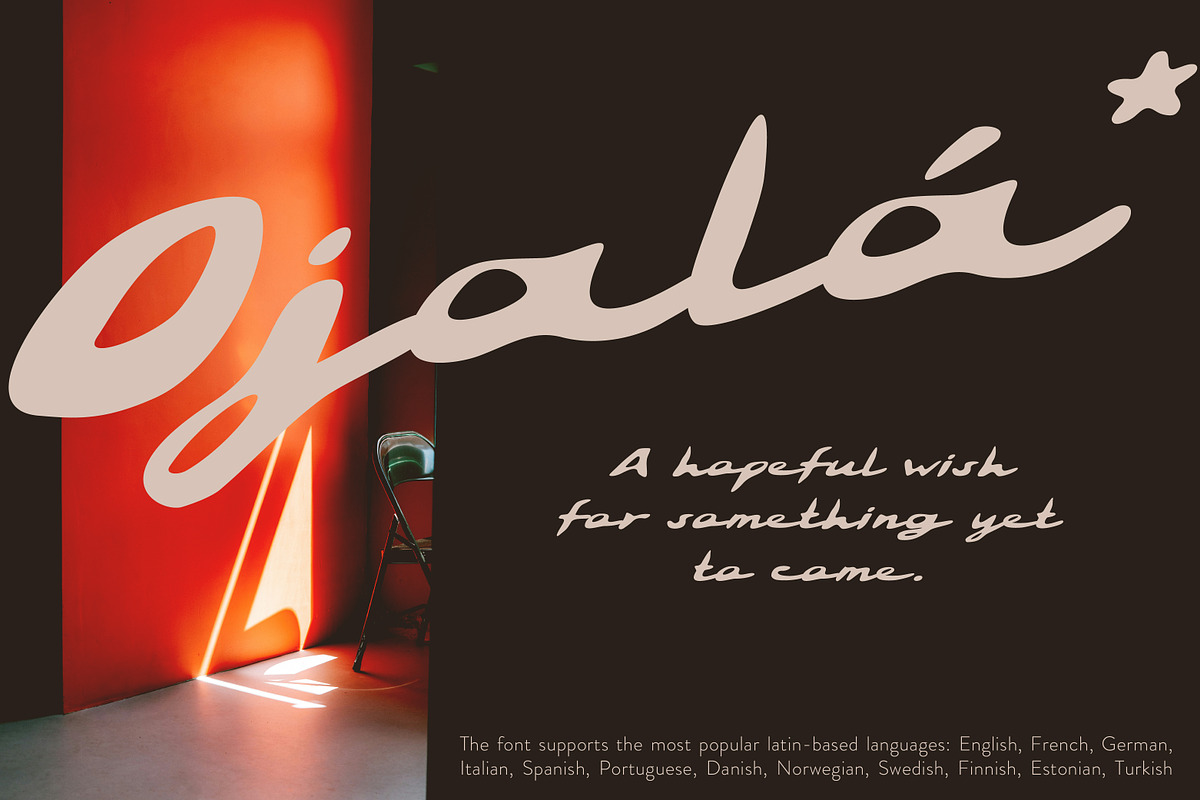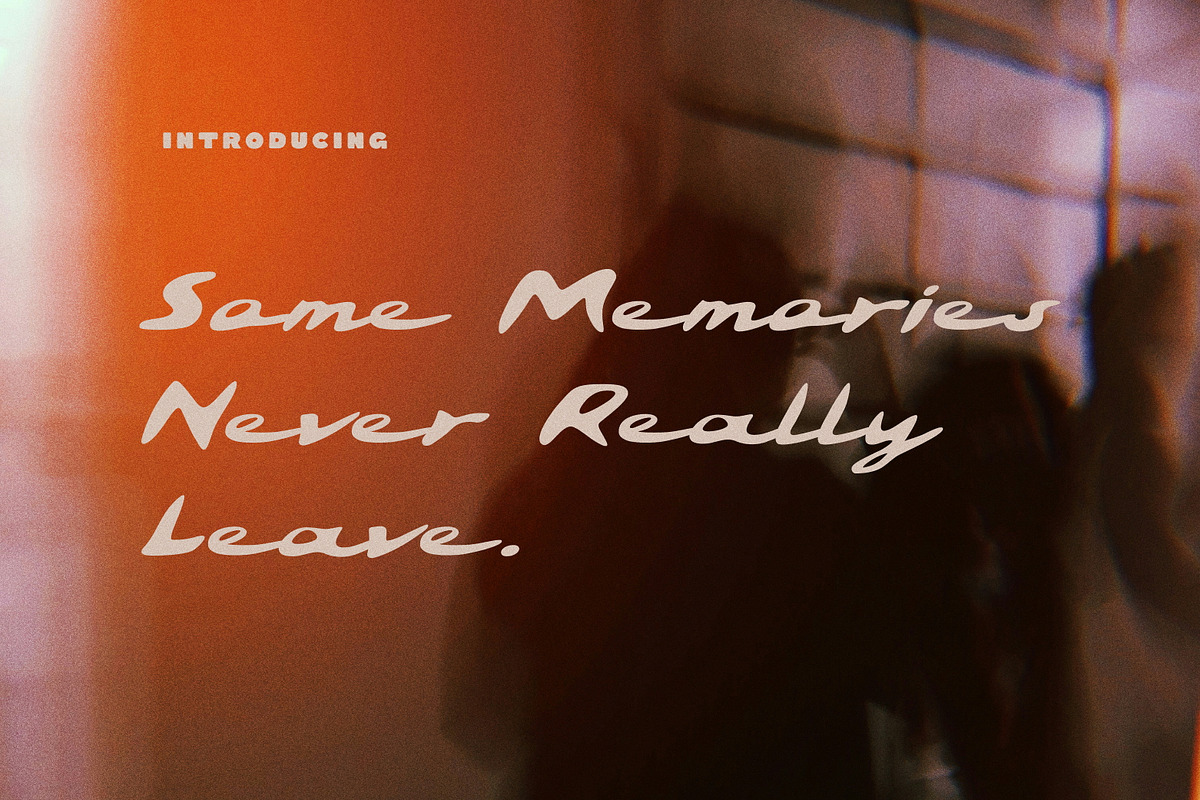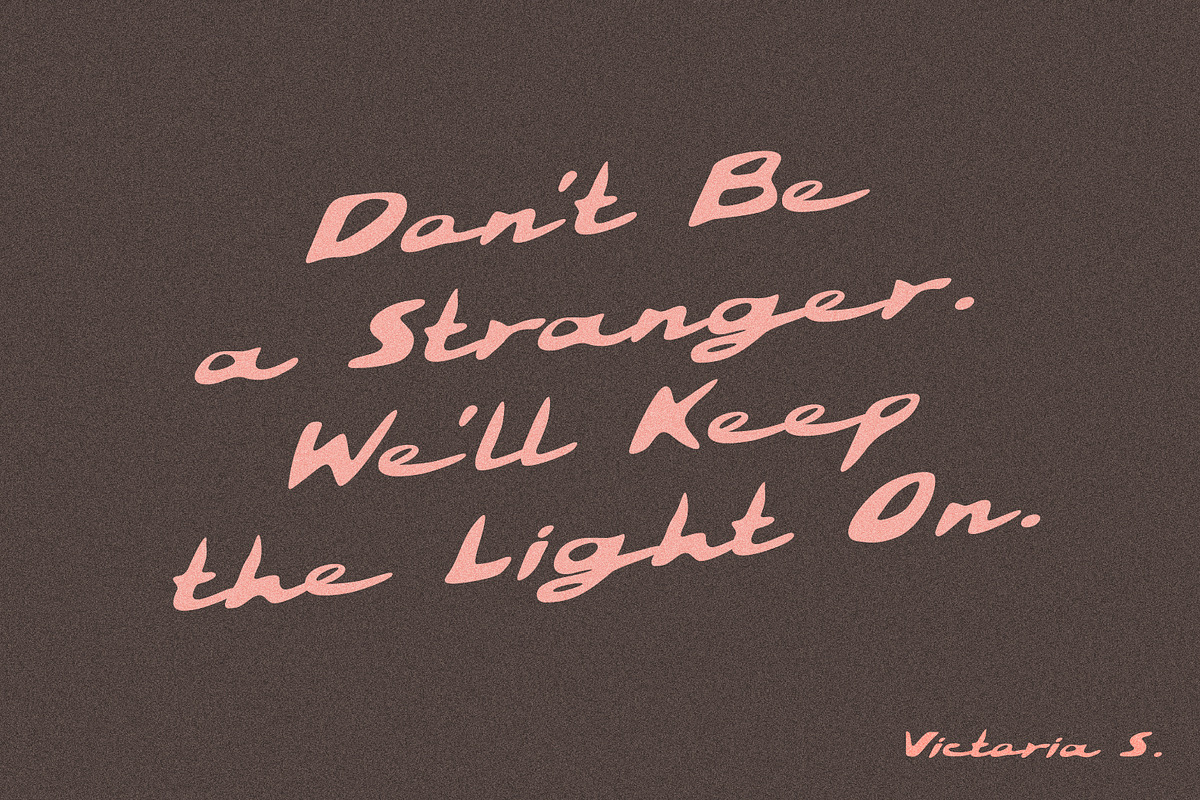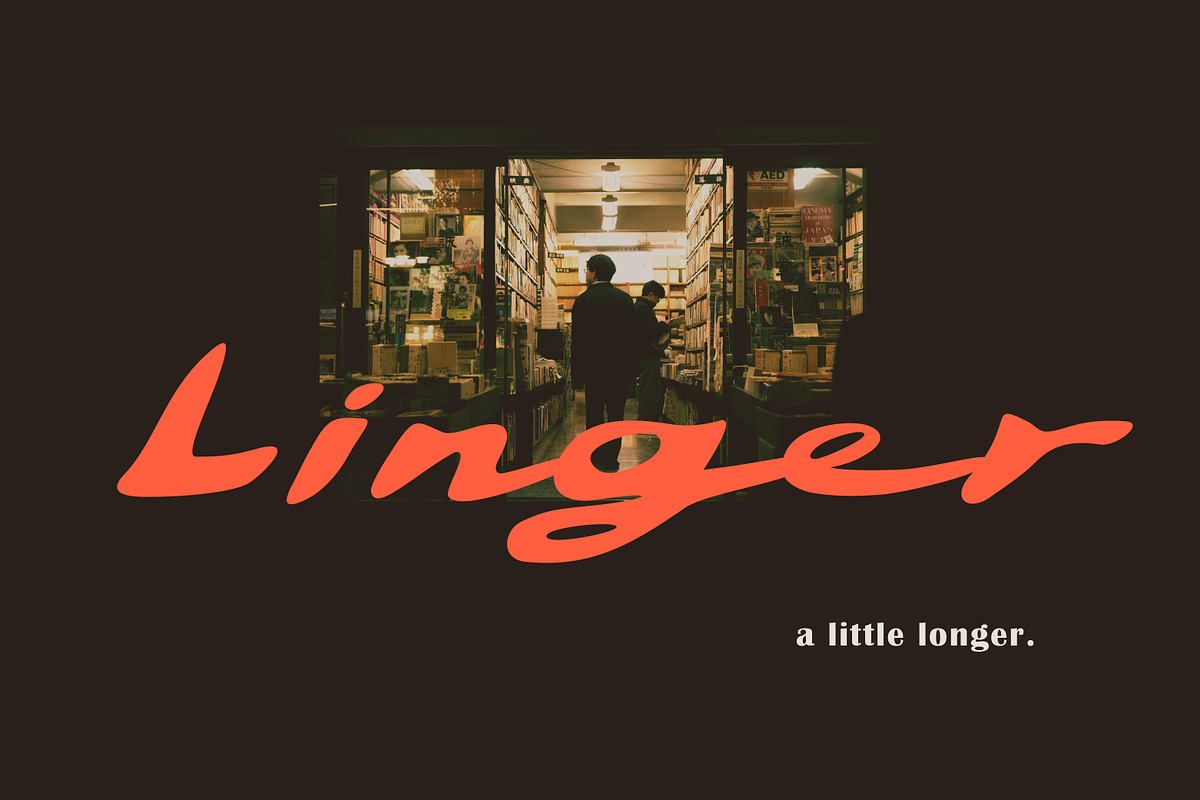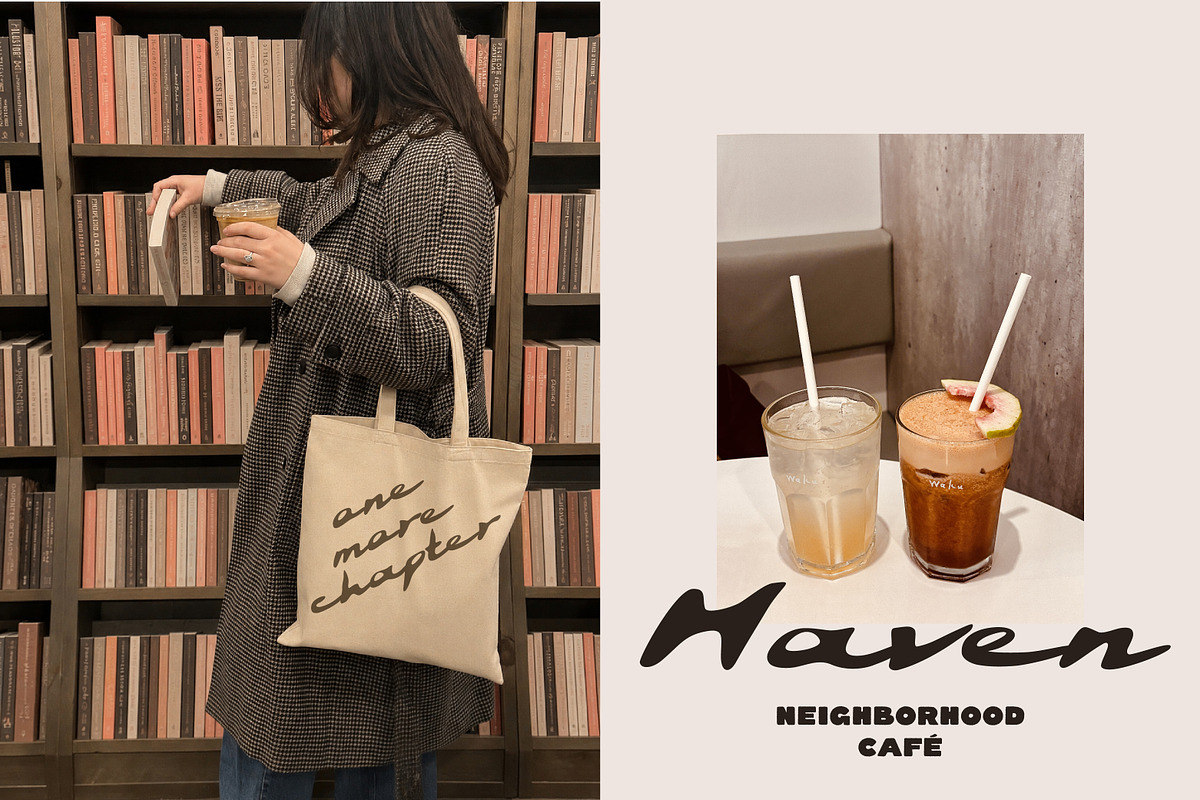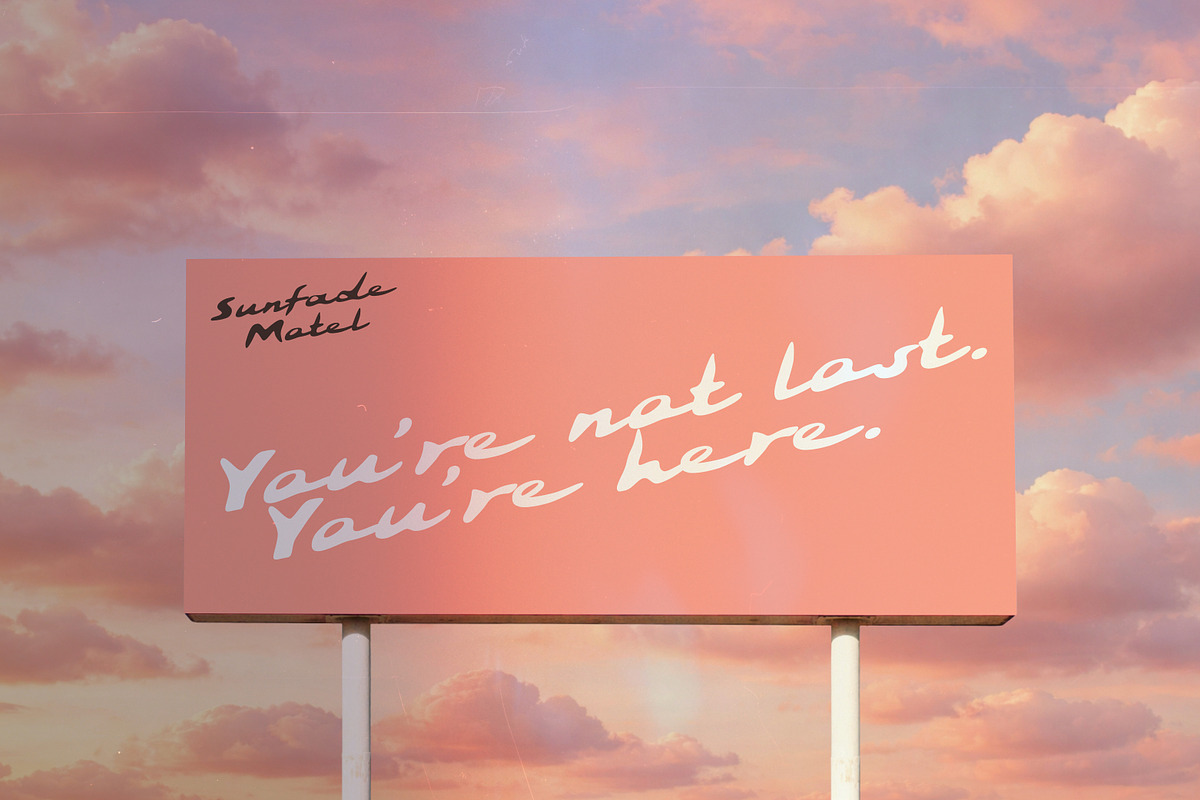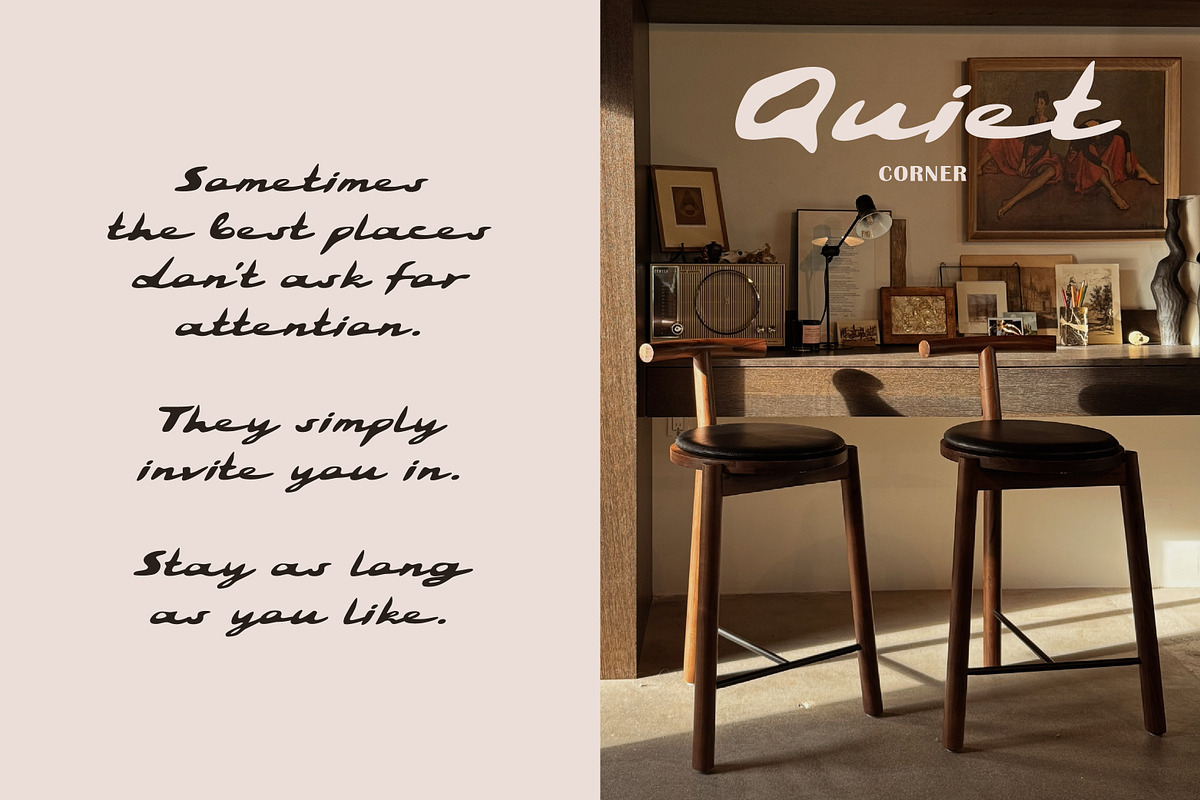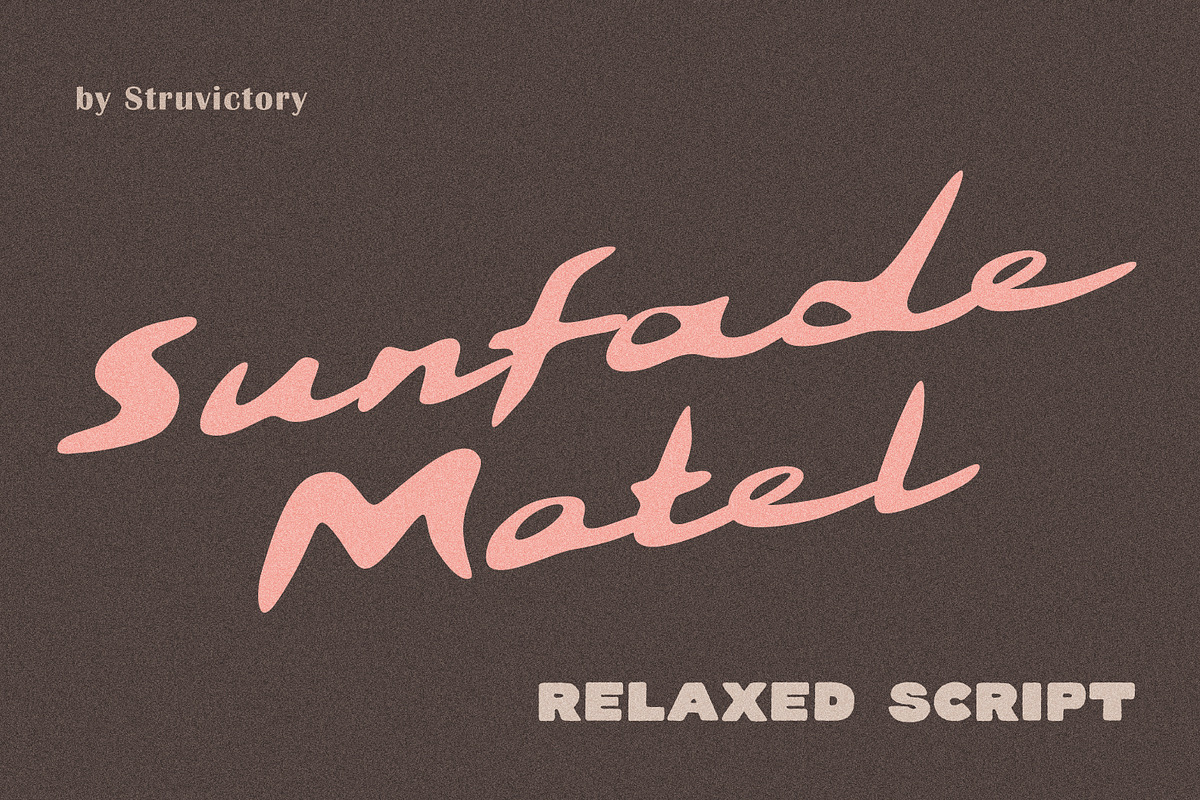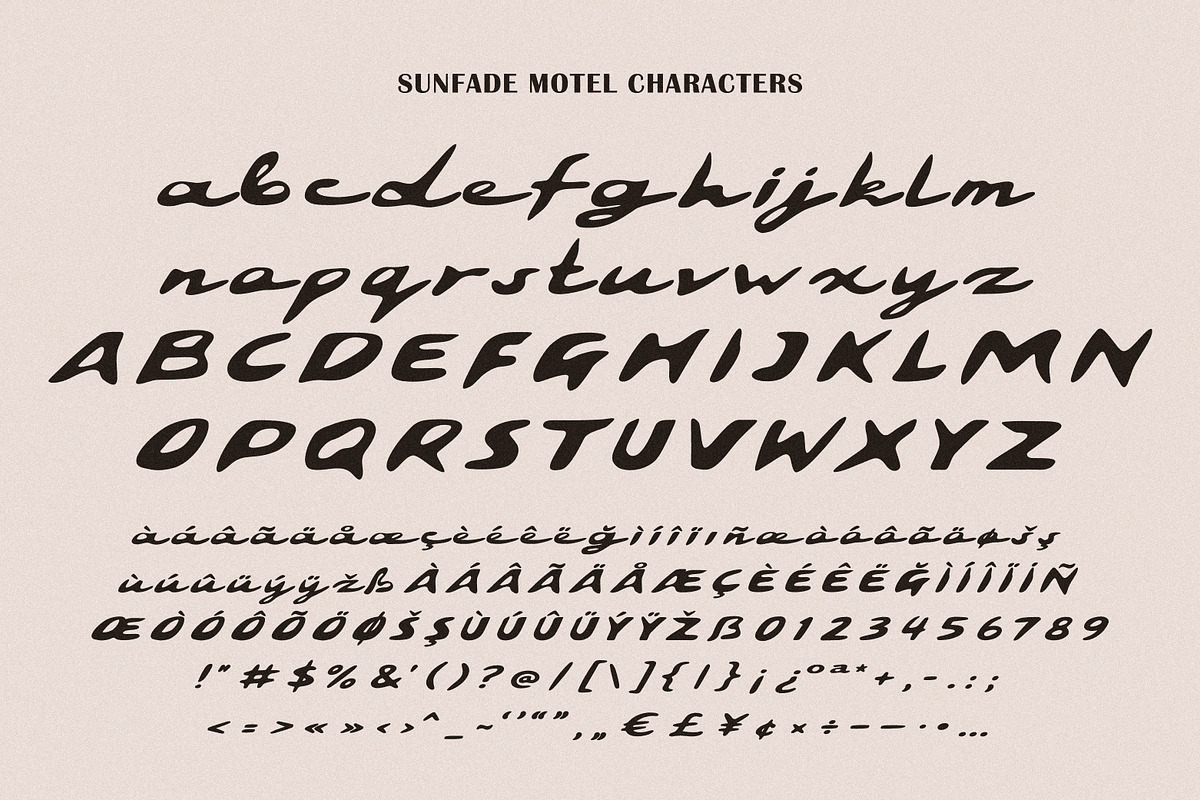
SunfadeMotel Handwritten Bold Script
Sunfade Motel is a relaxed handwritten script inspired by faded signs, quiet streets, neighborhood cafés, and the kind of places that stay with you long after you've left. Its wide, expressive letterforms feel effortless and natural, making it a perfect choice for branding, packaging, editorial design, logos, café identities, book covers, apparel, and social media. Designed to bring warmth and personality, Sunfade Motel helps create brands that feel memorable, inviting, and genuinely human.
Sunfade Motel supports the most popular latin-based languages, you can check the symbol you need by typing a couple of words in the font preview box.